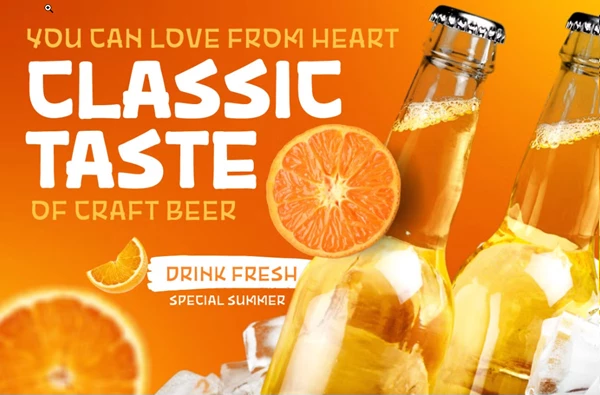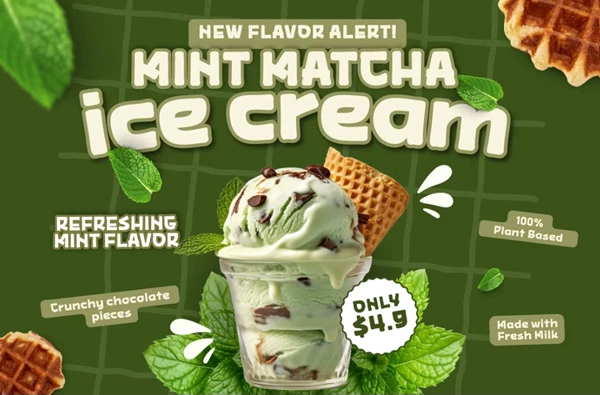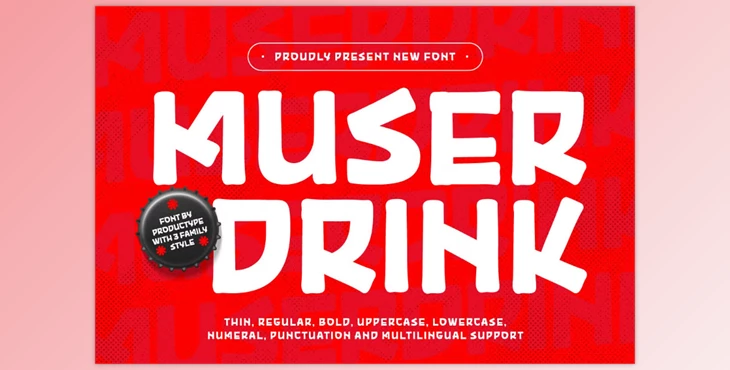
Muser Drink - Display Font:
Muser Drink is an eye-catching display typeface that captures attention. Promoting summer drinks is now easier with the bold typographic design Muser Drink offers. The font comes in three styles: Thin, Regular, and Bold. It fuses fun with chunkiness while remaining legible, thus making it perfect for meat packaging, promotional items, and digital content. Accessible Muser Drink fully supports OpenType, 85 languages, and PUA-encoded characters. This display typeface provides boundless creativity and extensive usage. Muser Drink is the ideal font for brands with an adventurous spirit wanting to reassert their identity.